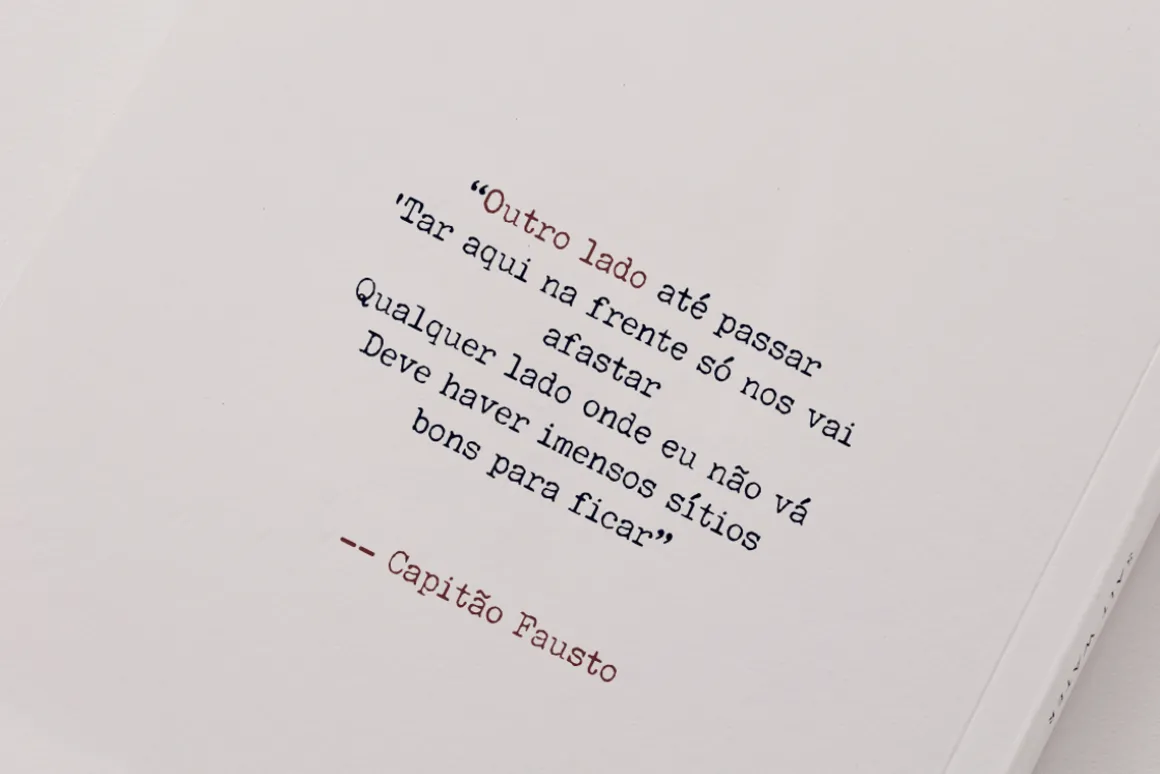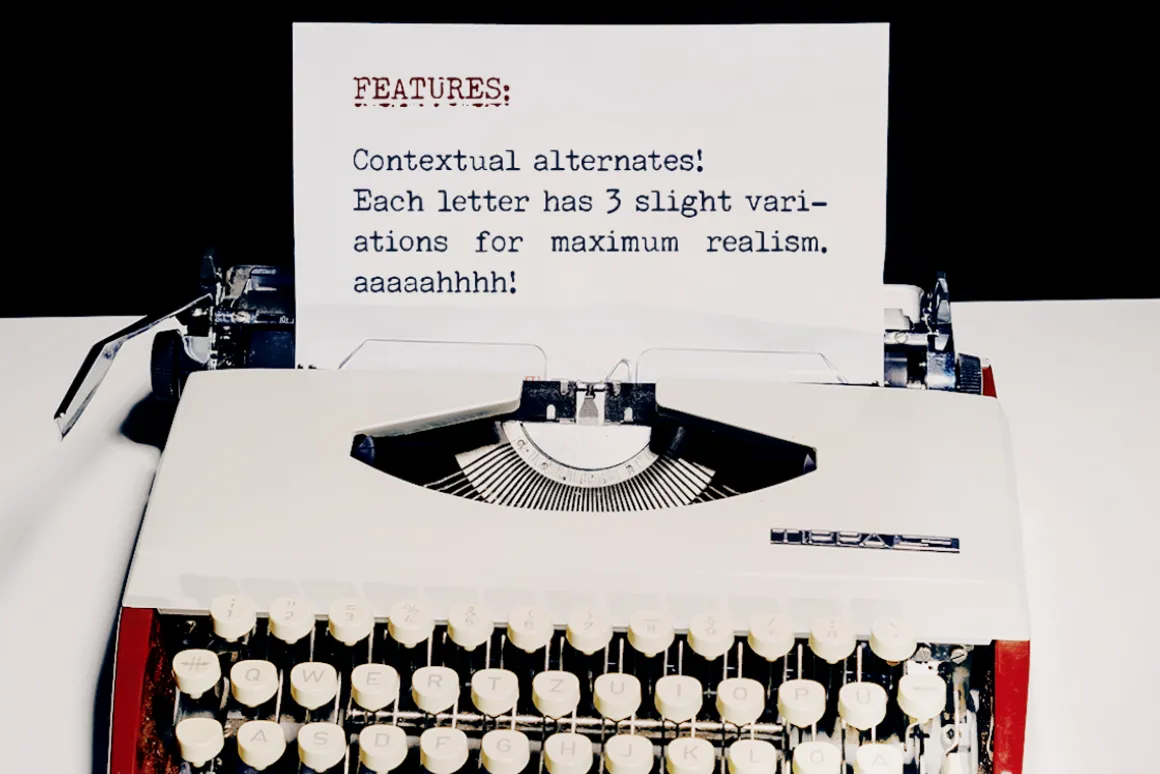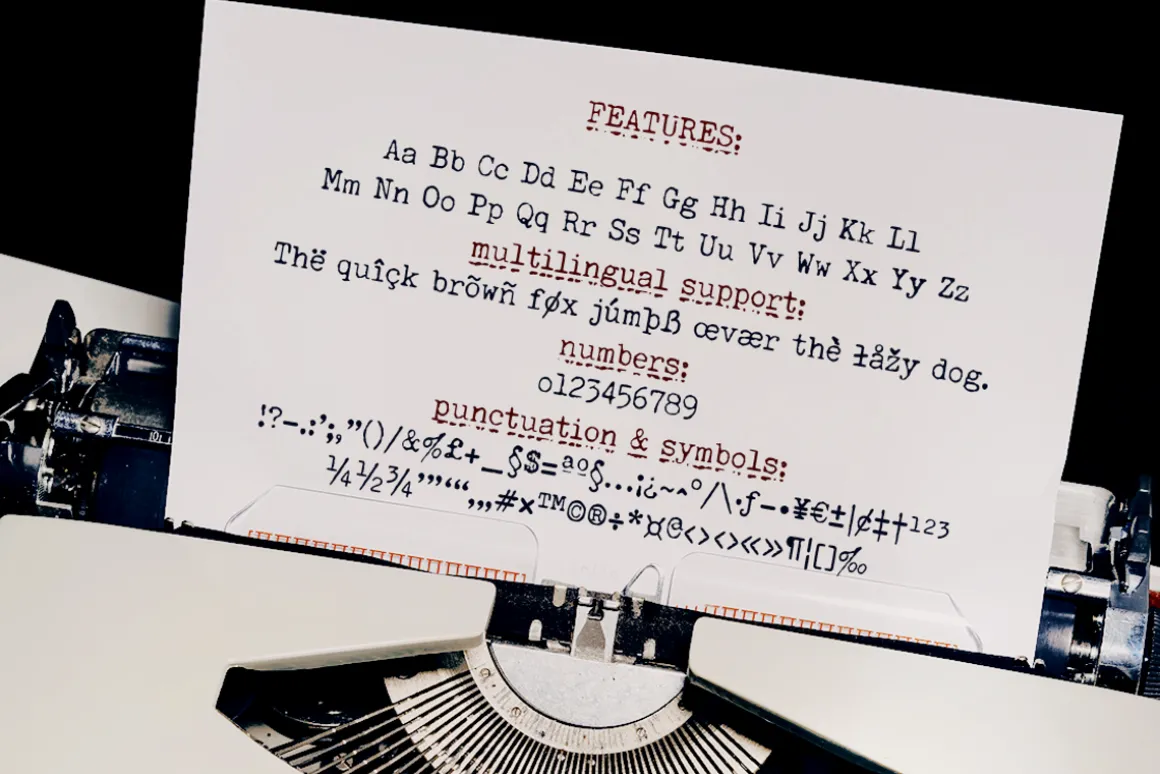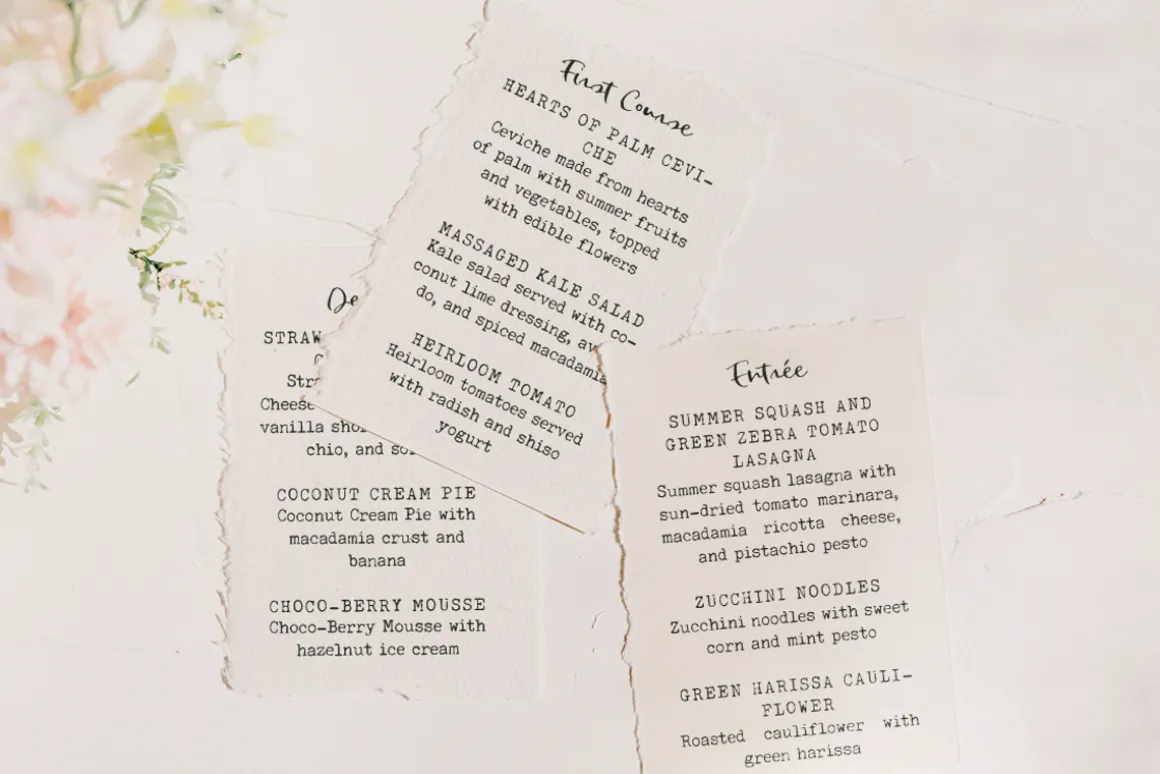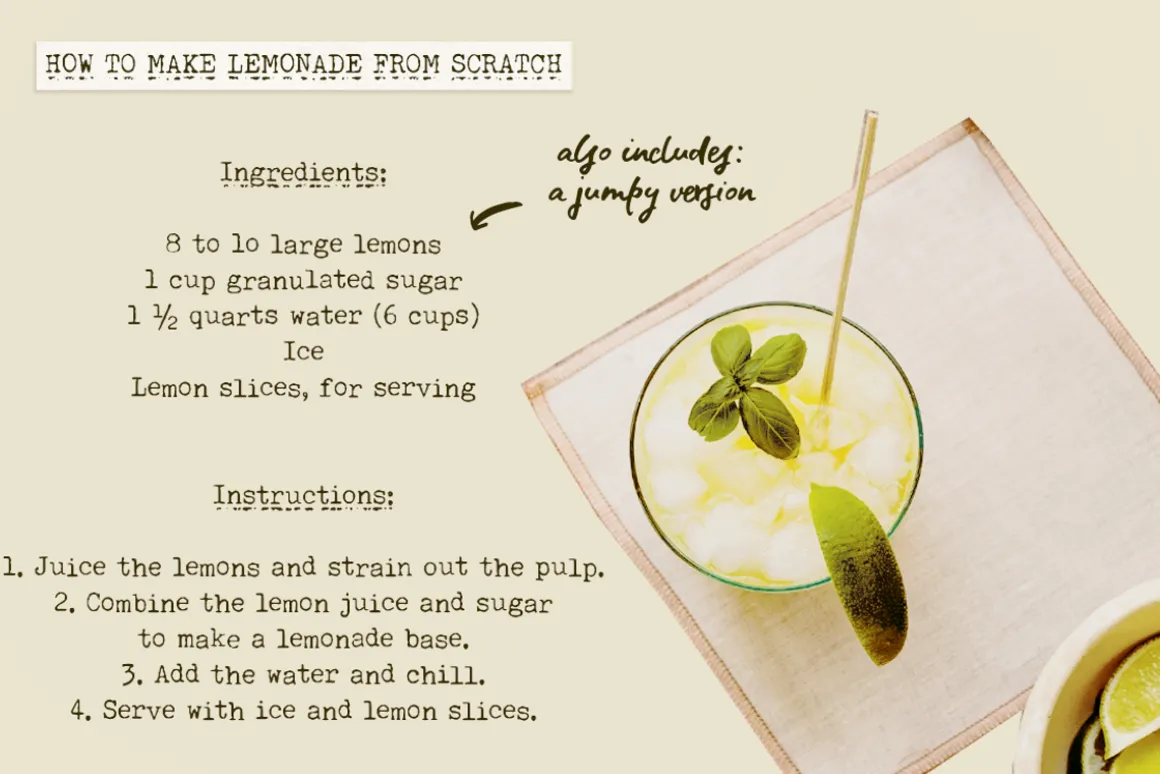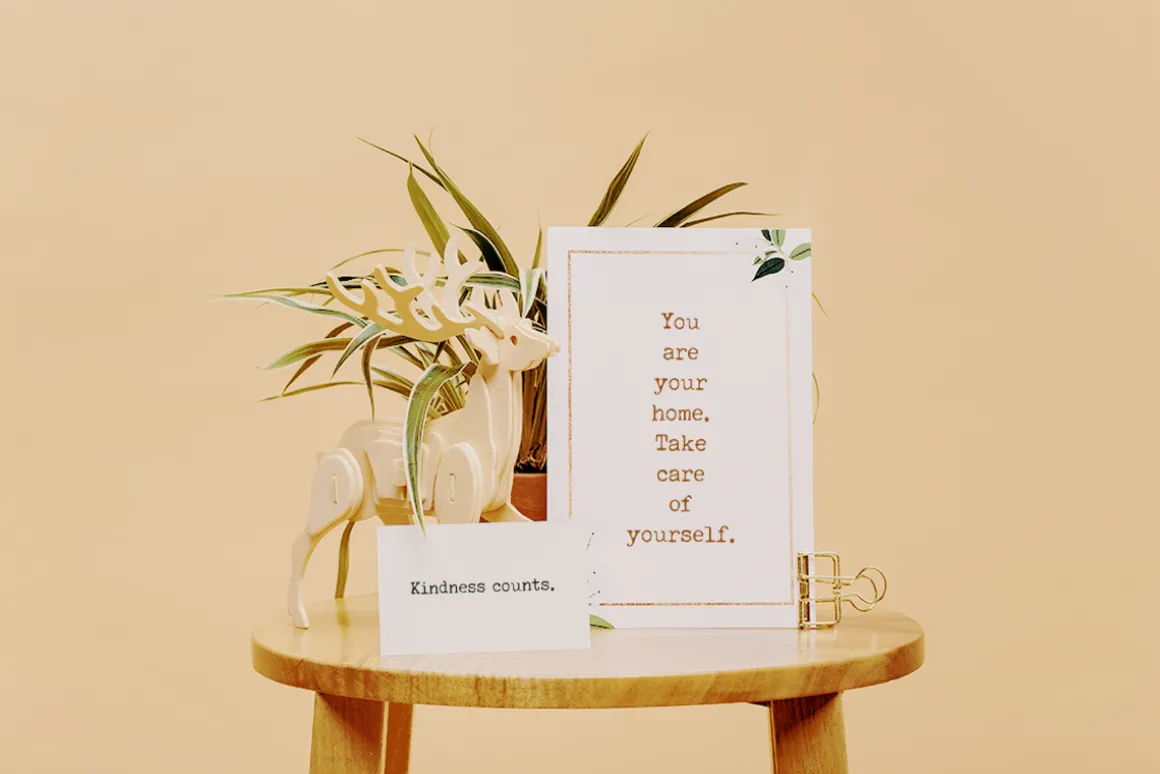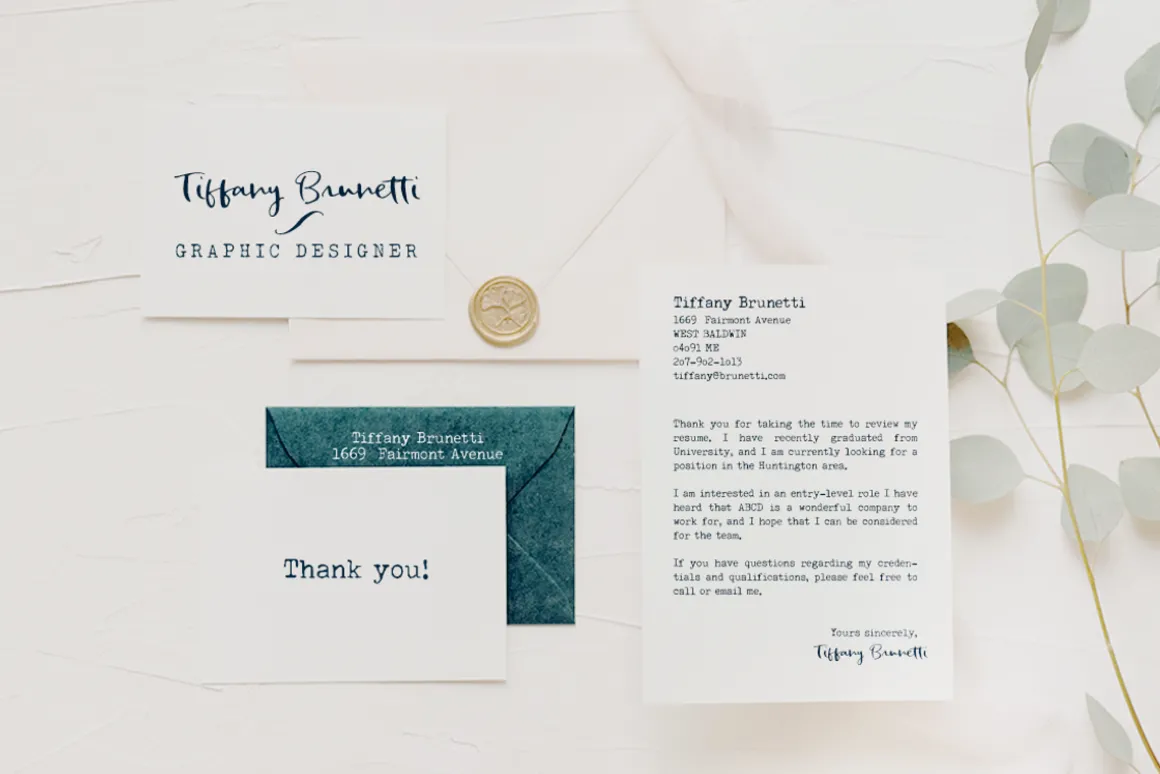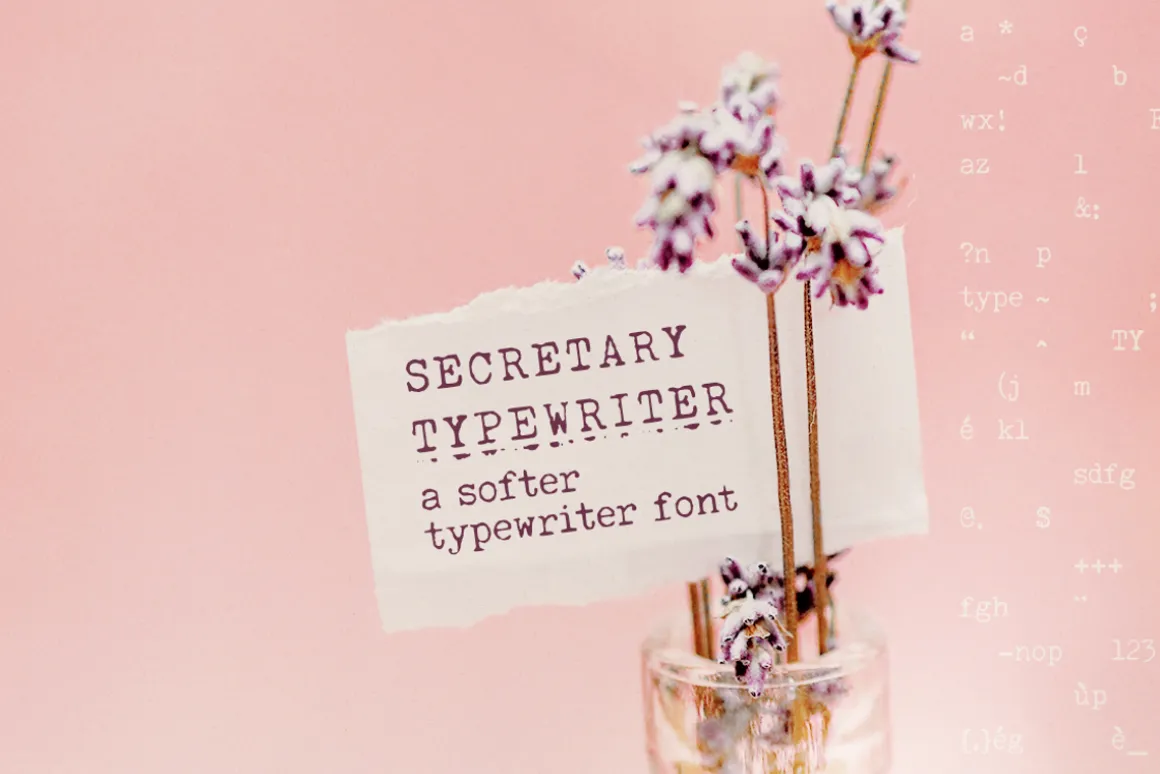
Secretary Typewriter is a typewriter font in a lighter, softer weight that makes it perfect for more delicate designs. Use it in long or short texts, in digital collages, branding and packaging, social media posts, logotypes, etc.
- Contextual alternates. Each letter and number has 3 slight variations that appear “randomly” for extra realism.
- Underline version of the font. For a grungier look.
- New! Jumpy version of the font, based on contextual alternates (please make sure this feature is enabled in your software, when using the font).